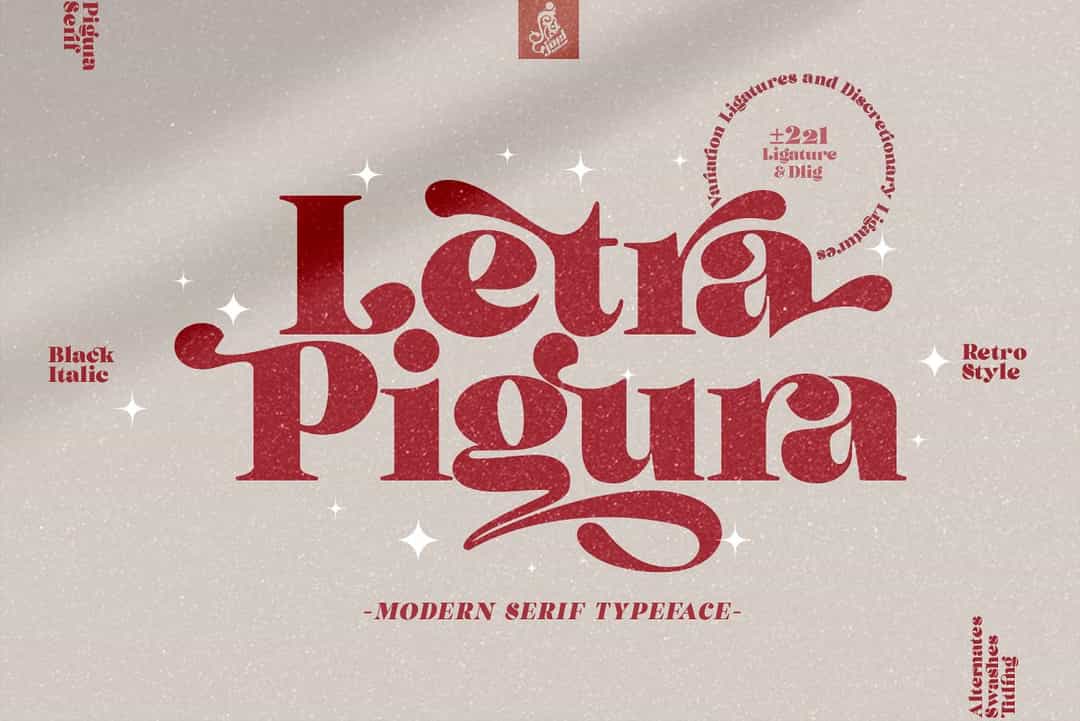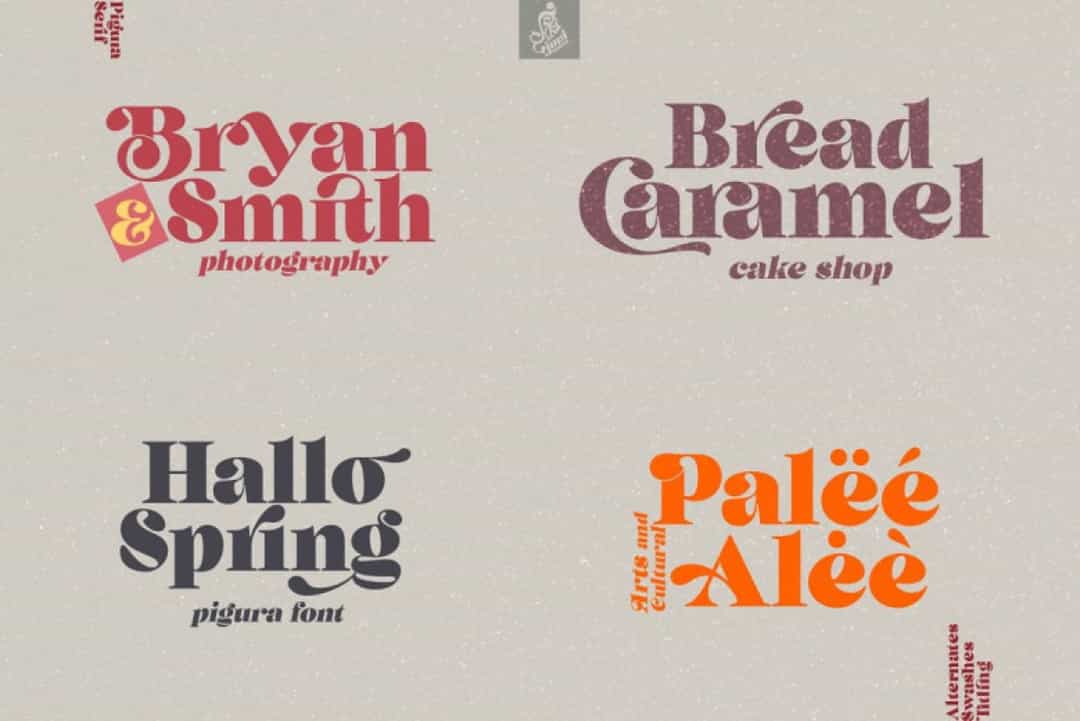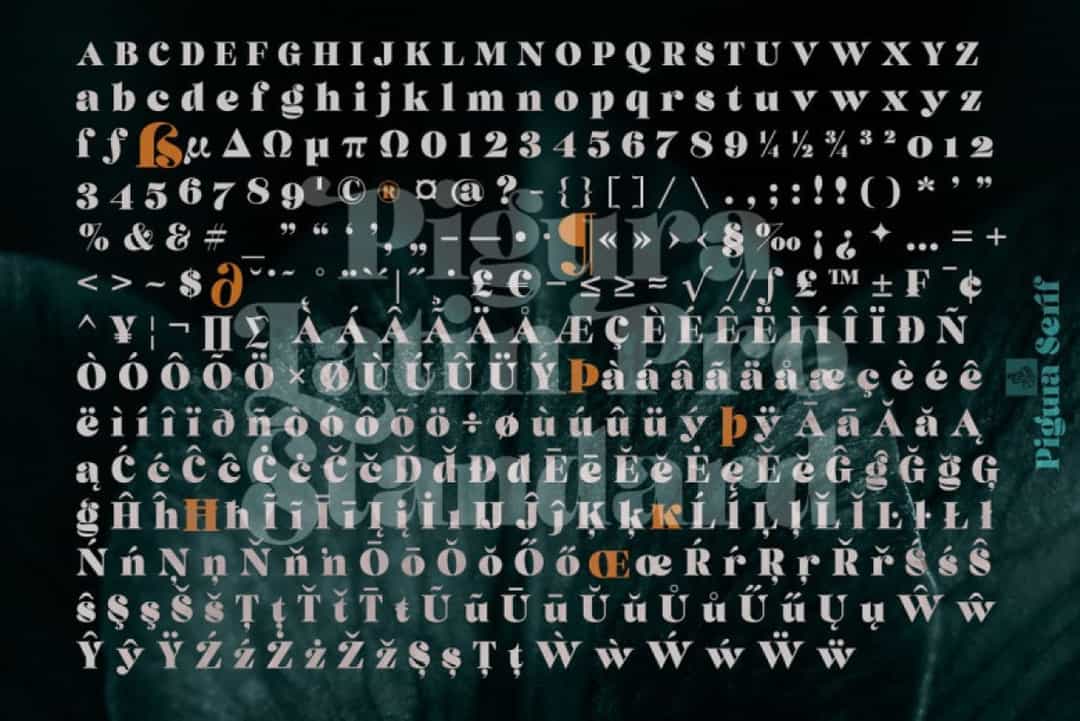
Pigura Serif Typeface is an elegant retro serif font that adds vintage appeal and modern sophistication. With an expansive set of ligatures for creators to create it with tiny swirling embeddings, Pigura makes for an eye-catching modern font ready to bring its unique style into any design project.